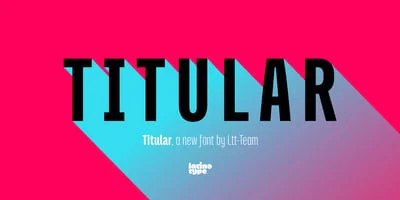
Titular Font
Titular Font is perfect for newspaper headlines, magazine covers, editorial design, academic publications, formal documents, corporate reports, and professional presentation titles. This commanding typeface excels in creating authoritative and impactful heading structures.
Titular Font is exciting because it masterfully combines typographic authority with refined elegance, featuring bold letterforms that command attention while maintaining the sophisticated readability essential for professional headline applications and formal communications.
The Titular Font family includes multiple weights ranging from Regular to Black, along with condensed variations optimized for headline use. This comprehensive collection provides designers with complete flexibility for creating powerful typographic hierarchies and impactful display applications.
Titular Font offers designers access to a meticulously crafted display typeface specifically engineered for headline and title applications. This commanding font features bold, well-proportioned letterforms with optimal spacing that ensures maximum impact and readability at large sizes. The typeface showcases strong character presence and refined details that create immediate visual authority while maintaining professional sophistication. Its distinctive character makes it particularly suitable for editorial publications and corporate communications where headlines must capture attention and convey credibility simultaneously. Titular Font delivers exceptional performance in high-impact applications where typographic strength and clarity are paramount. The font's authoritative design and technical precision make it an essential tool for designers working on projects that require powerful headlines and titles that command respect and attention while effectively communicating important information to diverse audiences.